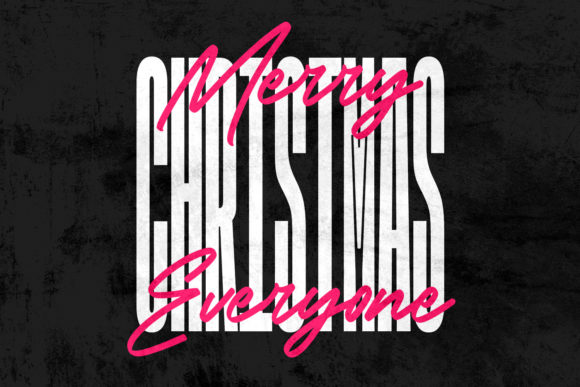
Introducing Fallbreeze Duo Font: Elevate Your Projects with a Branded yet Friendly Feel
The world of typography is vast and diverse, offering a multitude of font styles to suit every design need. Among these, the Fallbreeze Duo Font stands out as a versatile and visually appealing duo font, comprising a script and a sans serif style. This comprehensive font combination is specifically designed to infuse your projects with a branded but friendly feel, making it an ideal choice for designers and brands looking to make a lasting impression.
What is Fallbreeze Duo Font?
Fallbreeze Duo is not just any ordinary font; it’s a duo font that includes two distinct yet complementary styles: a beautiful script font and a clean sans serif font. This combination allows for incredible flexibility in design, enabling you to use them together for a dynamic look or separately for a more focused aesthetic. The script font brings a touch of elegance and sophistication, while the sans serif font offers a modern and straightforward approach.
Key Features of Fallbreeze Duo Font
- Dual Style Included: A script font for elegant and creative projects, and a sans serif font for a clean and modern look.
- High Versatility: Suitable for a wide range of projects including branding, advertising, packaging, and digital media.
- Branded yet Friendly Feel: Achieves a perfect balance between professionalism and approachability.
- Easy to Read: Both fonts are designed with readability in mind, ensuring your message is communicated effectively.
- Customizable: Offers a range of characters, including ligatures, making it easy to customize your text for a unique look.
Use Cases for Fallbreeze Duo Font
The versatility of Fallbreeze Duo Font makes it suitable for a myriad of applications. Here are some of the most impactful use cases:
- Branding and Logotypes: The duo font’s unique combination allows for the creation of memorable and distinctive brand identities.
- Digital Media: Ideal for website headings, social media posts, and email newsletters, adding a professional yet friendly touch.
- Print Materials: Perfect for brochures, posters, flyers, and business cards, offering a blend of elegance and modernity.
- Packaging: Elevate your product packaging with a font that stands out on shelves and conveys your brand’s personality.
Why Choose Fallbreeze Duo Font?
In a sea of fonts, Fallbreeze Duo stands out for several reasons:
- Unique Combination: Offers the benefits of two font styles in one package, providing unparalleled design flexibility.
- Time-Saving: Having two styles that complement each other perfectly saves designers time in selecting and pairing fonts.
- Support for Creative Projects: Helps bring creative visions to life with its distinctive and adaptable typography.
Tips for Using Fallbreeze Duo Font Effectively
To maximize the impact of Fallbreeze Duo Font in your projects, consider the following tips:
- Mix and Match: Combine the script and sans serif fonts to create visual interest and hierarchy in your designs.
- Consider Readability: Use the sans serif font for body text and the script font for headings to ensure readability and add a decorative touch.
- Play with Ligatures: Take advantage of the font’s ligatures to add a unique flair to your text.
- Adjust Font Sizes: Experiment with different font sizes to emphasize certain parts of your text and create a dynamic layout.
Fallbreeze Duo Font is a powerful tool for designers and brands aiming to elevate their projects with a branded yet friendly feel. Its unique combination of script and sans serif styles, along with its versatility and readability, makes it an excellent choice for a wide range of applications. Whether you’re working on a branding project, digital media, or print materials, Fallbreeze Duo Font offers the flexibility and aesthetic appeal needed to make your designs stand out.